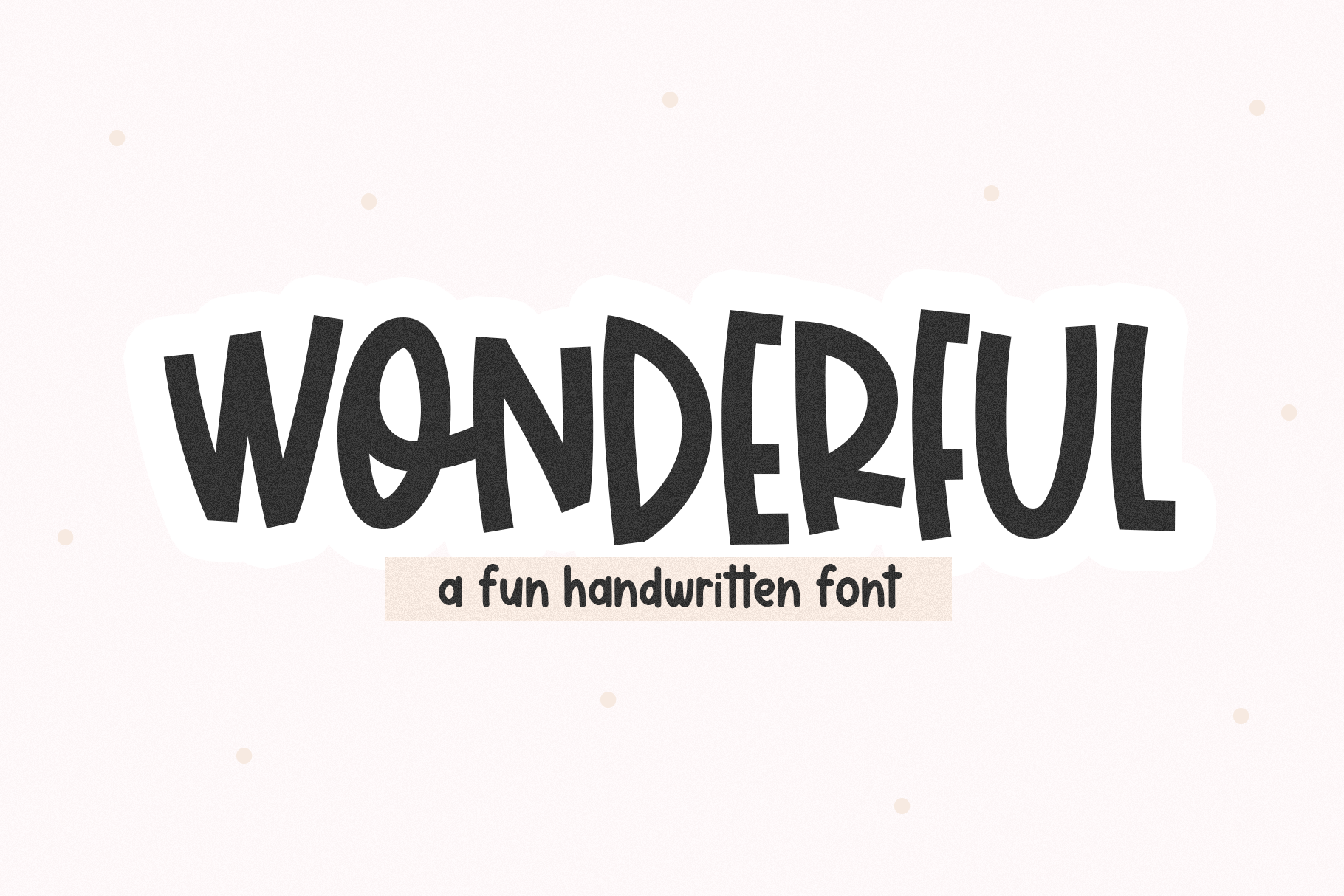
Wonderful | Cute Handwritten Font
Wonderful is a bold handwritten font.
This font is perfect for svg files, crafts, cricut projects, stickers, shirts, mugs, logos, procreate and more!